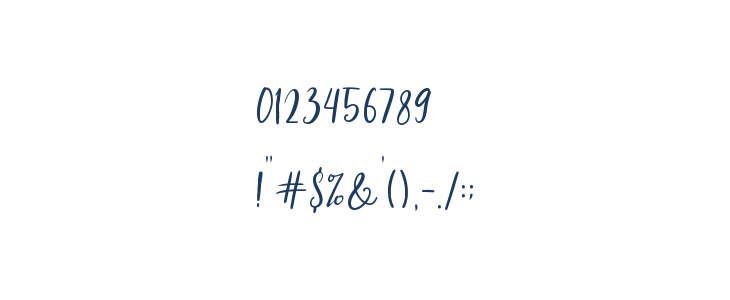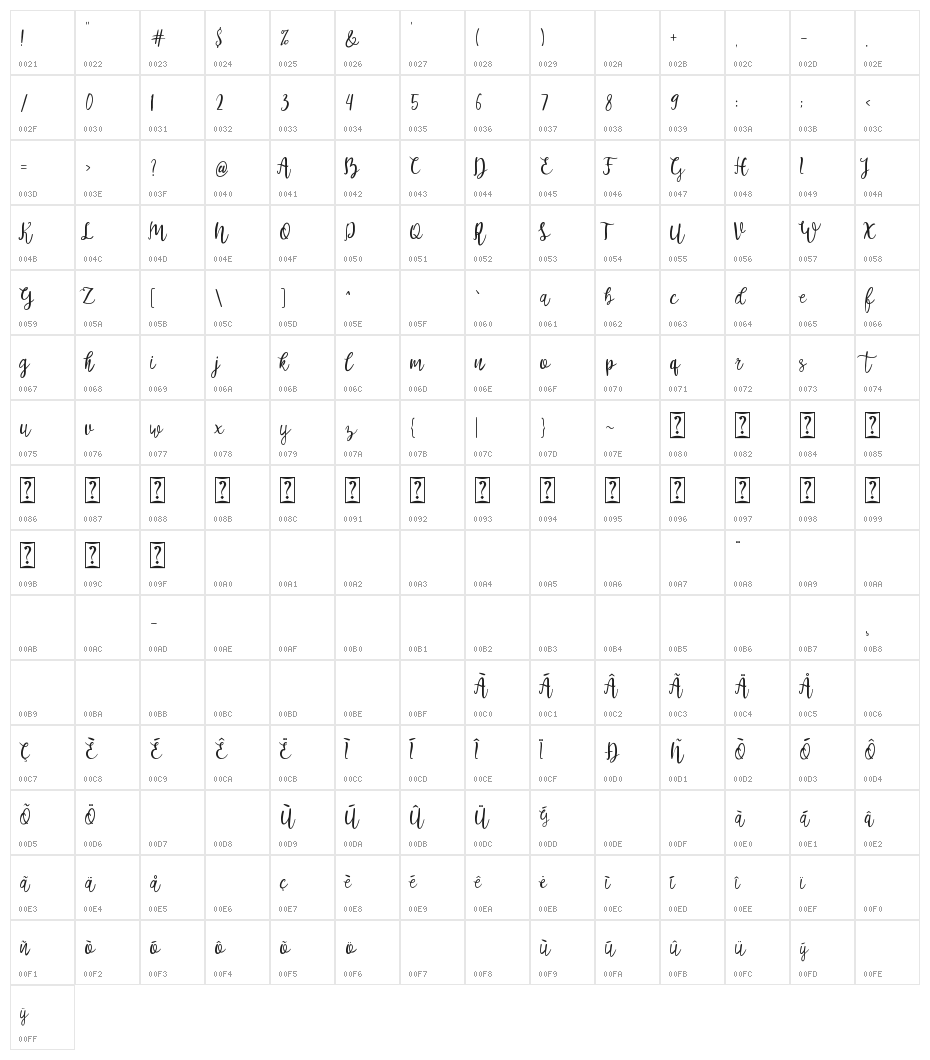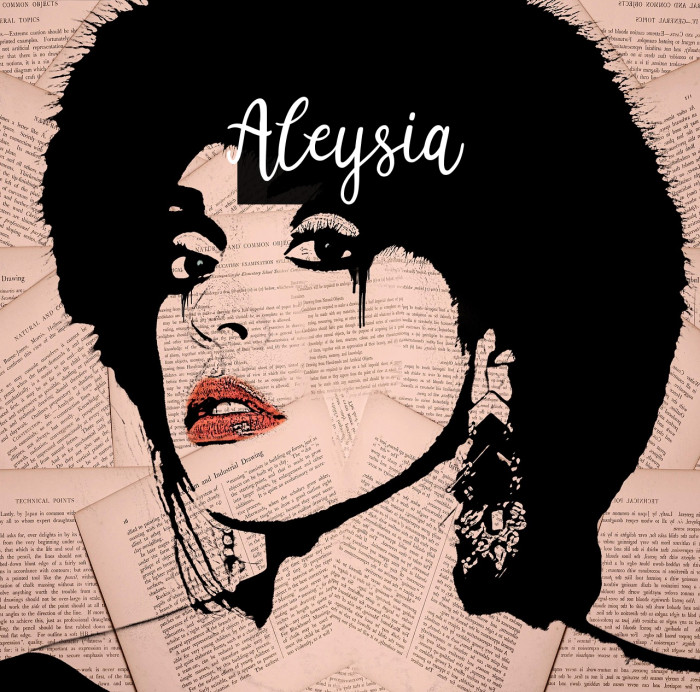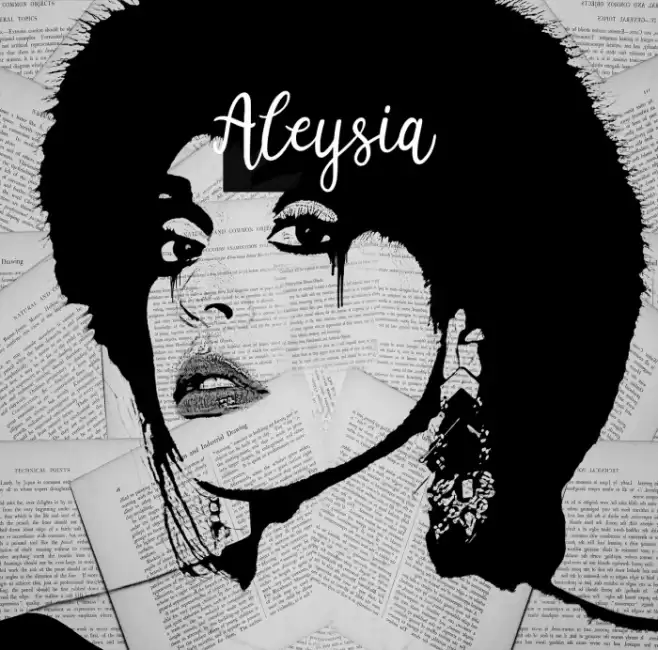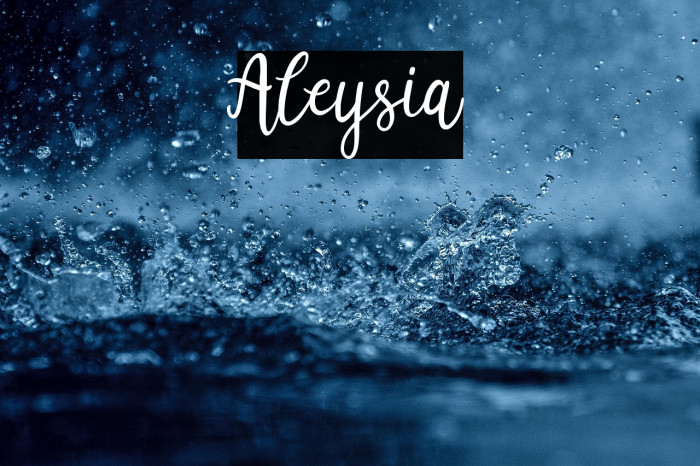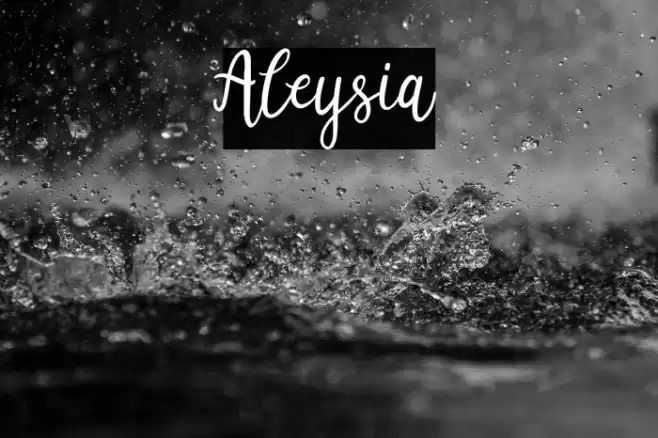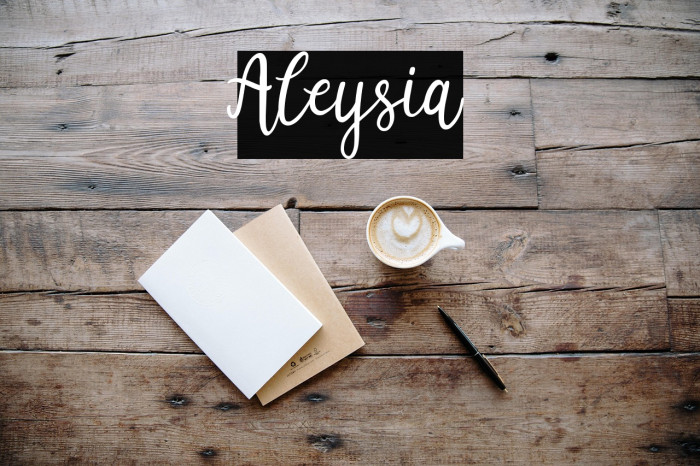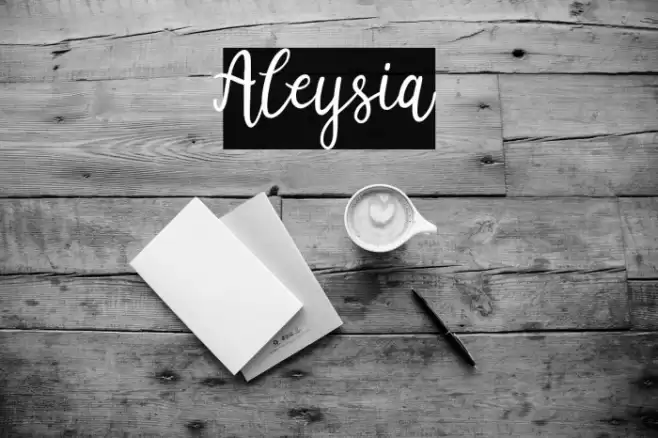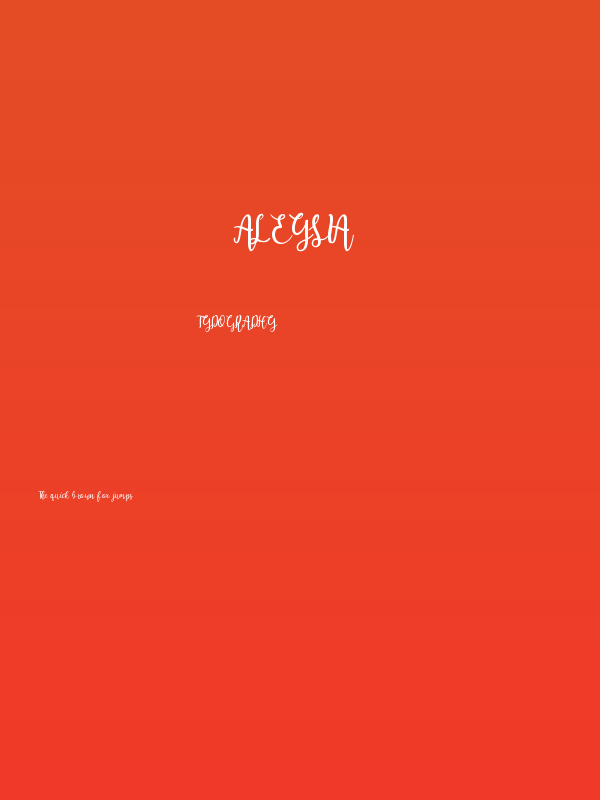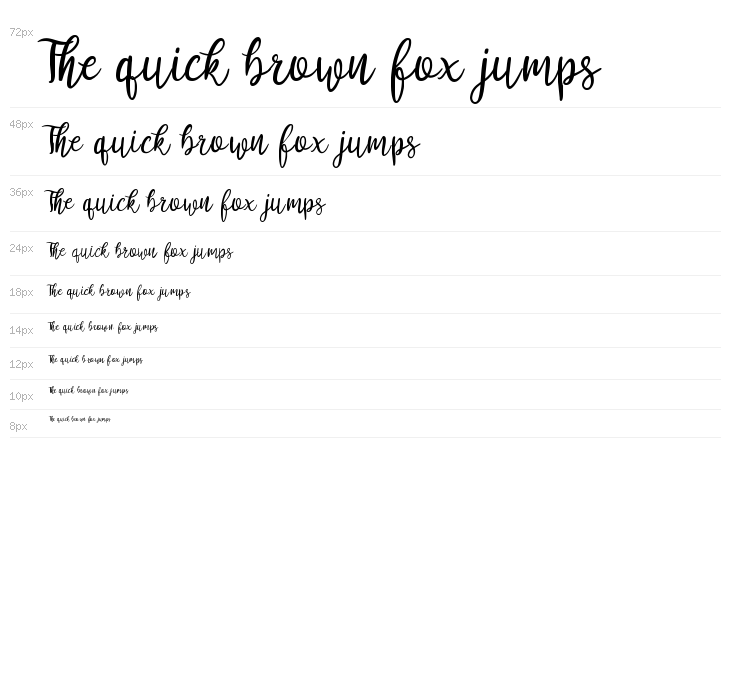
Aleysia Font
Aleysia Description
This font exudes a playful and elegant script style, characterized by its fluid and connected letterforms. The uppercase letters are bold and expressive, with a slight slant that adds a dynamic feel. The lowercase letters maintain a consistent flow, enhancing readability while retaining a handwritten charm. Numbers are clear and distinct, matching the overall style of the alphabet. Special characters are thoughtfully designed, integrating seamlessly with the rest of the font. The strokes vary in thickness, providing a medium contrast that adds depth and interest to the text. This font is perfect for projects that require a personal touch, such as invitations, greeting cards, and branding materials.
| Overall Style | Elegant, Playful |
| Use Case | Invitations, Greeting cards, Branding |
| Proposed Projects | Ideal for invitations, greeting cards, branding, and any project needing a personal touch. |